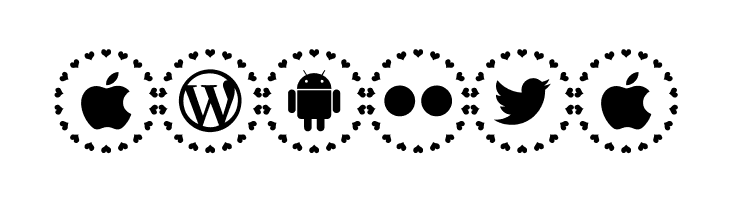
A bold, artistic font with circular elements and dynamic strokes.
A bold, geometric font with unique circular cutouts and a uniform appearance.
A decorative, tech-inspired font with circuit-like patterns.
A playful, circle-based decorative font with a whimsical and artistic style.
A modern, geometric font with circular lines and sharp angles.
A playful, outlined font with characters enclosed in circles, offering a unique geometric style.